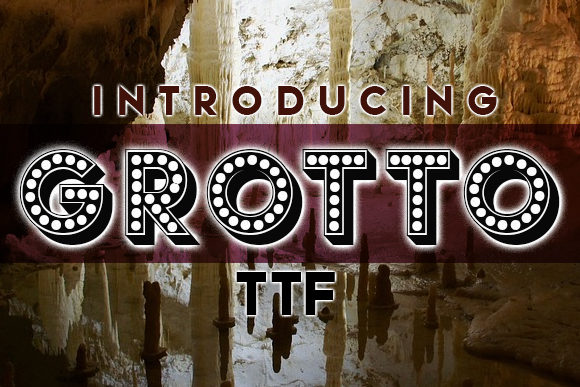
Immerse yourself in the captivating world of Grotto Font, a display typeface that will ignite your creativity and elevate your designs to new heights. This extraordinary font, meticulously crafted by the visionary Vladimir Nikolic, invites you to unleash your imagination and captivate your audience with its vibrant and captivating nature.
Grotto Font is the epitome of versatility, effortlessly adapting to a myriad of design concepts and themes. Whether you're crafting eye-catching posters, captivating flyers, or alluring prints, this font possesses the inherent power to transform your creations into masterpieces.
At its core, Grotto Font embodies the essence of neon, radiating an incandescent glow that commands attention and attracts admiration. Its bold strokes and sharp angles exude an undeniable vibrancy, evoking a sense of energy and dynamism that will leave a lasting impression on your target audience.
Indulge in the limitless possibilities that Grotto Font presents. Its inherent versatility allows it to seamlessly blend into a variety of design aesthetics, from the sleek and modern to the whimsical and eclectic. Experiment with different colors, textures, and compositions to discover the countless ways this font can elevate your designs.